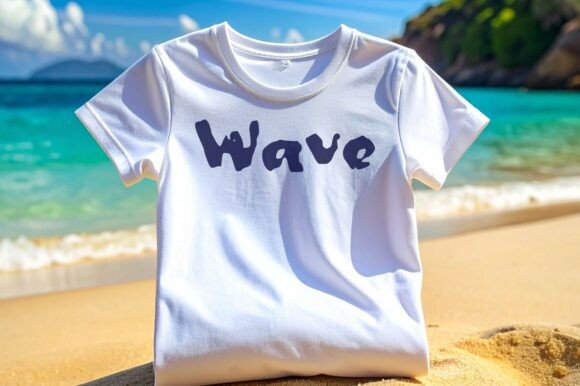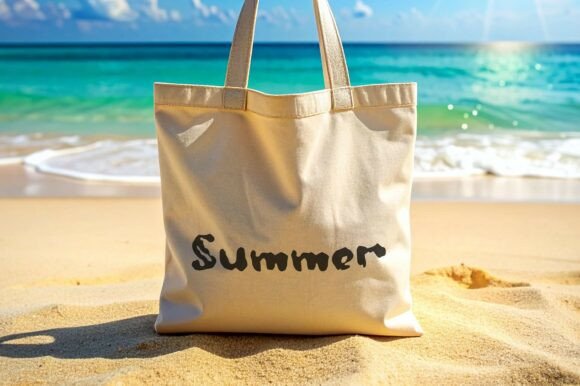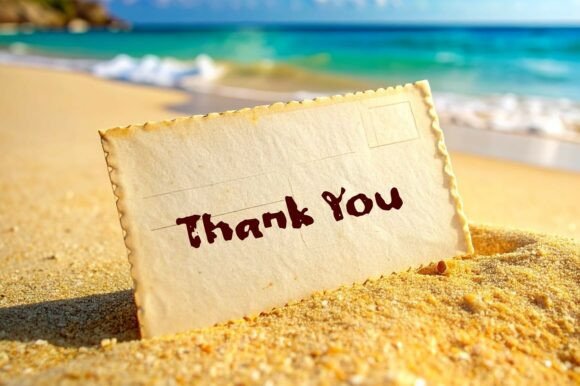
Discover the Unbridled Charm of Cerangka Font
Do you remember the feeling of capturing the perfect summer moment – the sun-kissed smile, the carefree laughter, or the serendipitous encounter that becomes a cherished memory? For designers seeking to evoke this carefree essence in their work, there’s a font that embodies the very spirit of seaside freedom: the alluring Cerangka Font. This expressive display font is more than just a typeface – it’s an experiential journey that whispers the gentle touch of human creativity into every word.
As a designer, you’re always on the lookout for a font that perfectly captures the essence of a brand. The Cerangka Font is an invaluable addition to your toolkit, allowing you to breathe life into travel-focused and beach-themed brands with its laid-back elegance and liberated philosophy. Its unique blend of handmade charm and delightful unpredictability makes it a standout choice for casual wear and merchandise, imbuing them with a relaxed, bohemian aura that draws in customers.
Cerangka Font Key Features
- Font Family: Cerangka Font is a unique, custom-designed font family with a distinct aesthetic.
- Unique Characteristics: Features a distinctive, hand-drawn feel with intricate details and flourishes, adding a touch of elegance to any design.
Cerangka Font Review
I recently had the chance to work with Cerangka Font, and I must say, it’s a mixed bag. Here’s my honest review.
- Unique aesthetic: Cerangka Font has a distinct, modern feel that’s perfect for brands looking to stand out.
- Good legibility: The font is clear and easy to read, even at smaller font sizes.
- Support for various languages: Cerangka Font includes a wide range of language support, making it a great choice for global brands.
- Limited font weights: Cerangka Font only comes in a few weights, which can limit its versatility.
- Not ideal for body text: While Cerangka Font is great for headlines, it’s not the best choice for large blocks of body text.
- No italic or bold italic: The font lacks italic and bold italic styles, which can be a drawback for some designers.
Overall, Cerangka Font is a solid choice for brands looking for a unique and modern aesthetic. However, its limitations mean it’s not the best fit for every project. With a bit of creativity and careful typography, Cerangka Font can still deliver great results.
Tips for Getting the Most Out of Cerangka Font
Experiment with different font sizes and styles to create visually appealing designs.
Use Cerangka Font in combination with other fonts to create a unique and eye-catching look.
Consider using Cerangka Font for headings and titles to add a touch of sophistication to your designs.
Cerangka Font is ideal for use in:
Advertising and marketing materials
Editorial and publishing content
Alternatives to Cerangka Font for Designers
Great Vibes Font is a beautiful, elegant script font suitable for creative projects, such as wedding invitations, branding, and packaging design. It’s perfect for adding a touch of sophistication and romance to your designs. Unlike Cerangka Font, Great Vibes Font has a more refined and polished look, making it ideal for high-end projects.
Pacifico Font is a beautiful, modern script font with a relaxed and casual feel. It’s perfect for projects that require a friendly and approachable tone, such as blogs, social media, and advertising. Compared to Cerangka Font, Pacifico Font has a more laid-back and easy-going vibe, making it suitable for everyday design projects.